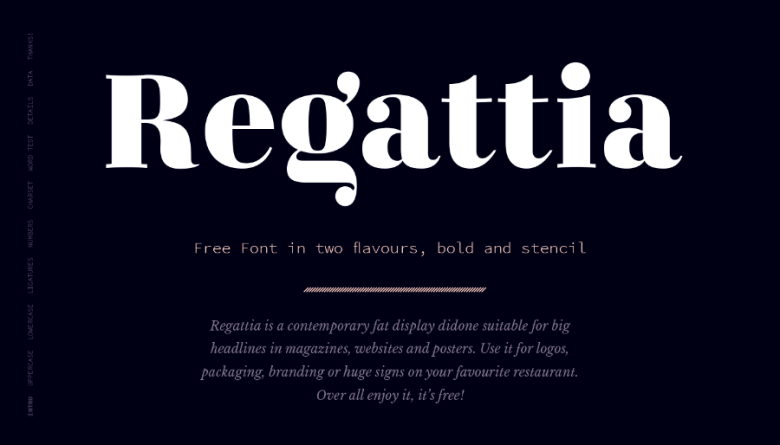
Regattia Typeface
Hi world! You do not have to spend too much time creating your own fonts, if you are looking for a serif font for your new project, then I will help you. Introducing Regattia Typeface! Regattia Font designed and shared by Bruno Sáez López. Regattia is a contemporary fat display didone suitable for big headlines in magazines, websites and posters. Use it for logos, packaging, branding or huge signs on your favourite restaurant.